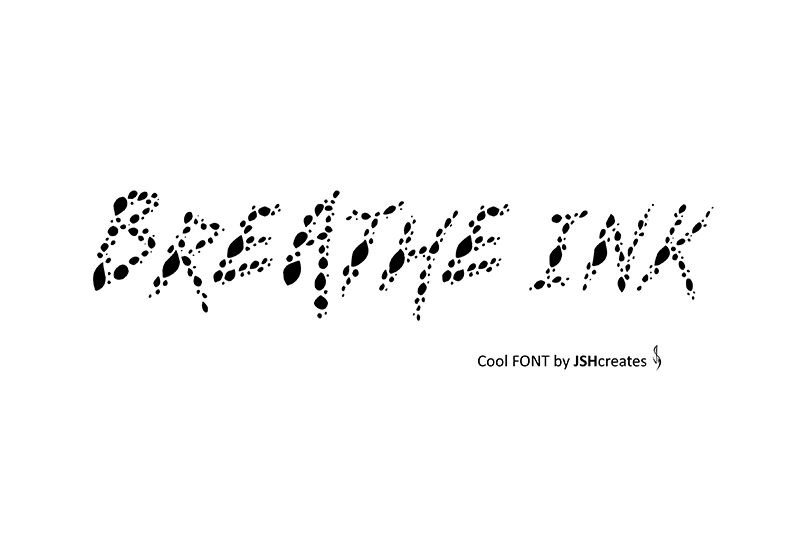
Breathe Ink
Breathe Ink font by JSH creates is a free decorative display font. The irregular pattern and abstract dotted design of the font heighten its already artistic essence, giving each word typed in it a contemporary flair. It has a visual flow that can be described as psychedelic, evoking emotional freedom and authentic creative expression.
Use the font in your posters, flyers, video graphic titles, game design, stationery instrument labeling, packaging design, app typography, labels & tags designs among other graphic artworks.